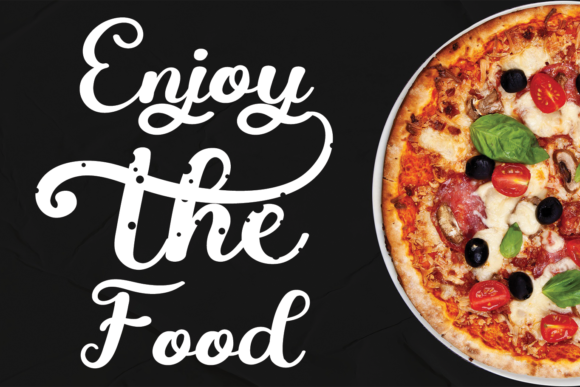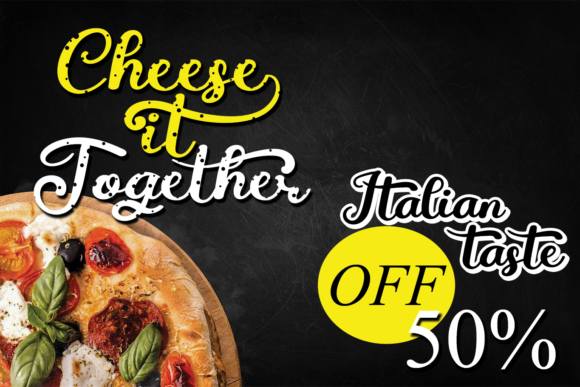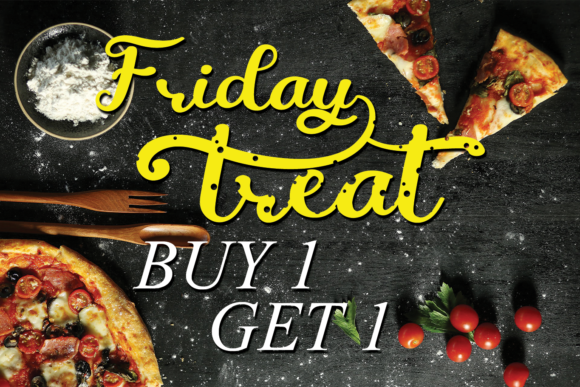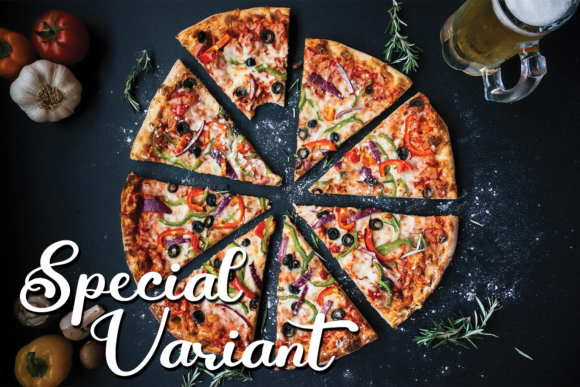
Introducing Cheese It Together Font: Elevate Your Designs with Sophistication and Elegance
In the world of typography, few fonts manage to convey the perfect blend of sophistication and elegance. However, Cheese It Together is a chic, refined script font that emanates exactly that. With its stylish alternates and ligatures, this font is the perfect match for any project that demands a touch of luxury and refinement.
What Makes Cheese It Together Stand Out?
Cheese It Together is not just another script font; it’s a carefully crafted typeface designed to add a touch of class to your designs. Here are some features that make it stand out:
- Stylish Alternates: The font comes with a range of stylish alternates that allow you to customize your text to fit your project’s tone and style. Whether you’re looking for a more formal or playful approach, Cheese It Together has got you covered.
- Ligatures: The font features beautiful ligatures that seamlessly connect letters, creating a fluid and elegant look. This is particularly useful for creating beautiful headings, titles, and quotes.
- Refined and Elegant: Cheese It Together boasts a refined and elegant design that’s perfect for projects that require a sophisticated look. From luxury brands to high-end events, this font is sure to impress.
Whether you’re a designer, crafter, or DIY enthusiast, Cheese It Together is an excellent addition to your typography arsenal. Here are some ways you can use this versatile font:
- Branding and Logo Design: Use Cheese It Together to create stunning logos and brand identities that exude sophistication and elegance.
- Stationery and Invitations: Add a touch of luxury to your stationery, invitations, and greeting cards with this beautiful script font.
- Packaging and Product Design: Elevate your product packaging with Cheese It Together’s refined and elegant design.
- Digital and Print Media: Use the font in your digital and print media, including brochures, flyers, and social media graphics.
Tips for Using Cheese It Together
To get the most out of Cheese It Together, here are some tips to keep in mind:
- Pair it with a Sans Serif Font: Combine Cheese It Together with a clean sans serif font to create a beautiful contrast and add visual interest to your design.
- Experiment with Alternates and Ligatures: Don’t be afraid to try out different alternates and ligatures to find the perfect combination for your project.
- Use it for Headings and Titles: Cheese It Together is perfect for creating stunning headings and titles that grab attention.
In conclusion, Cheese It Together is a sophisticated and elegant script font that’s perfect for designers and crafters looking to elevate their projects. With its stylish alternates, ligatures, and refined design, this font is sure to add a touch of luxury to any project. So why wait? Download Cheese It Together today and take your designs to the next level!
- Sophisticated and elegant script font
- Stylish alternates and ligatures
- Refined and elegant design
- Perfect for branding, stationery, packaging, and digital media